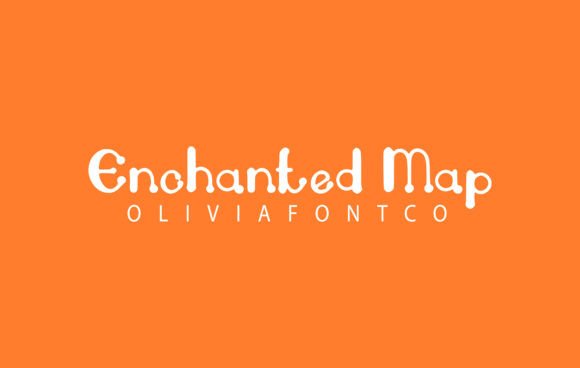
Discover the Magic of Enchanted Map Font: Elevate Your Designs with a Romantic Touch
In the world of typography, fonts play a crucial role in bringing creative ideas to life. Among the numerous fonts available, Enchanted Map Font stands out for its unique blend of authenticity and romance. This handwritten font is expertly designed to capture the hearts of designers and crafty individuals alike, making it a true favorite for various design projects. In this article, we’ll explore the enchanting features of Enchanted Map Font and how it can elevate your designs to new heights.
The Charm of Enchanted Map Font
Enchanted Map Font is an authentic handwritten font that exudes a romantic touch. Its elegant and flowing strokes make it perfect for designs that require a personal and sophisticated feel. The font’s legibility and versatility make it suitable for use as both title and body text, allowing designers to experiment with different styles and layouts.
One of the standout features of Enchanted Map Font is its ability to add a touch of whimsy to any design. Its handwritten nature gives it a unique and organic feel, making it ideal for projects that require a personal and human touch. Whether you’re designing a wedding invitation, a social media post, or a magazine headline, Enchanted Map Font is sure to make your design stand out.
Endless Design Possibilities
Enchanted Map Font is a versatile font that can be used for a wide range of design projects. Its romantic and elegant feel makes it perfect for:
- Magazine headlines: Add a touch of sophistication to your magazine covers with Enchanted Map Font.
- Social media: Make your social media posts stand out with this beautiful and elegant font.
- Branding: Use Enchanted Map Font to create a unique and memorable brand identity.
- Wedding invitations: Add a touch of romance to your wedding invitations with this beautiful handwritten font.
- Cards: Create beautiful and personalized cards for special occasions using Enchanted Map Font.
The possibilities are endless, and with Enchanted Map Font, you can experiment with different designs and styles to create something truly unique.
Why Choose Enchanted Map Font?
With so many fonts available, why choose Enchanted Map Font? Here are a few reasons why this font stands out:
- Unique and authentic: Enchanted Map Font is a one-of-a-kind font that adds a personal touch to your designs.
- Legible and versatile: This font is easy to read and can be used for both title and body text.
- Romantic and elegant: Enchanted Map Font exudes a romantic and sophisticated feel, making it perfect for designs that require a touch of elegance.
Whether you’re a professional designer or a crafty individual, Enchanted Map Font is a great addition to your font collection.
Tips for Using Enchanted Map Font
To get the most out of Enchanted Map Font, here are a few tips to keep in mind:
- Experiment with different sizes: Enchanted Map Font looks great in various sizes, so don’t be afraid to experiment with different font sizes.
- Pair it with other fonts: This font pairs well with other fonts, so try combining it with other fonts to create a unique look.
- Use it for headings and body text: Enchanted Map Font is legible and elegant, making it perfect for both headings and body text.
- Add a personal touch: Use Enchanted Map Font to add a personal touch to your designs, making them more unique and special.
By following these tips, you can create stunning designs that showcase the beauty of Enchanted Map Font.
Enchanted Map Font is a beautiful and elegant handwritten font that adds a romantic touch to any design. Its unique and authentic feel makes it perfect for a wide range of design projects, from magazine headlines to wedding invitations. With its legibility, versatility, and romantic feel, Enchanted Map Font is a great addition to any font collection. Whether you’re a professional designer or a crafty individual, this font is sure to elevate your designs to new heights.